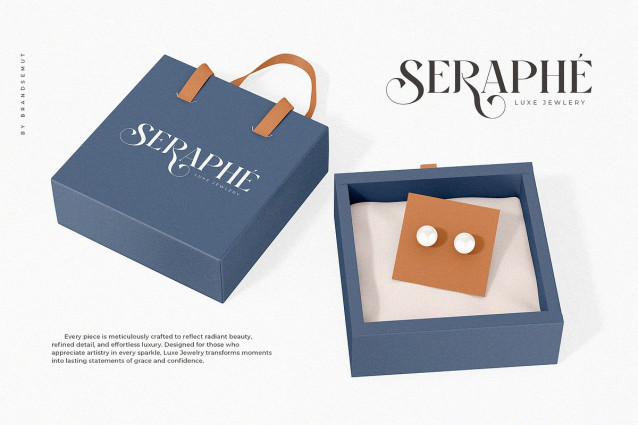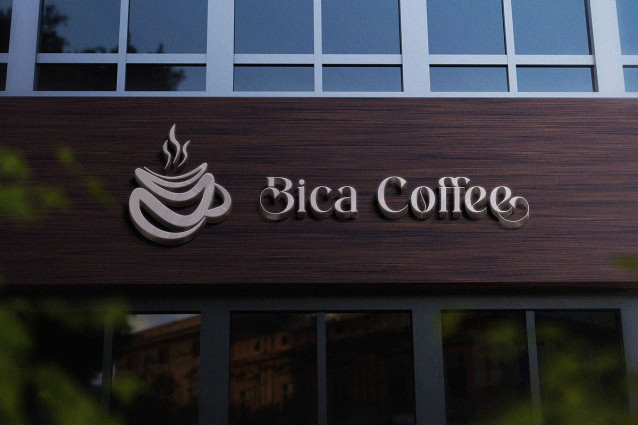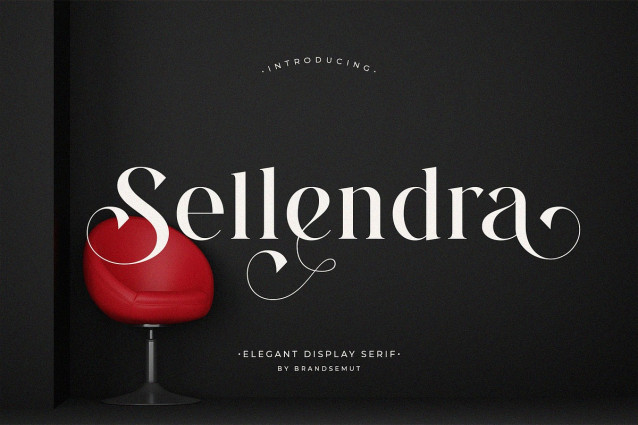
Sellendra Font
Sellendra Font is a stunning elegant display serif font designed for luxurious, creative, and timeless projects. Featuring beautifully crafted uppercase and lowercase characters, along with expressive swashes and ligatures, Sellendra is perfect for branding, editorial titles, wedding stationery, product packaging, and artistic logos that demand attention and sophistication.
Its high contrast strokes, stylish curves, and flowing terminals make Sellendra a perfect choice for designers seeking to evoke a classic yet modern elegance in their typography.